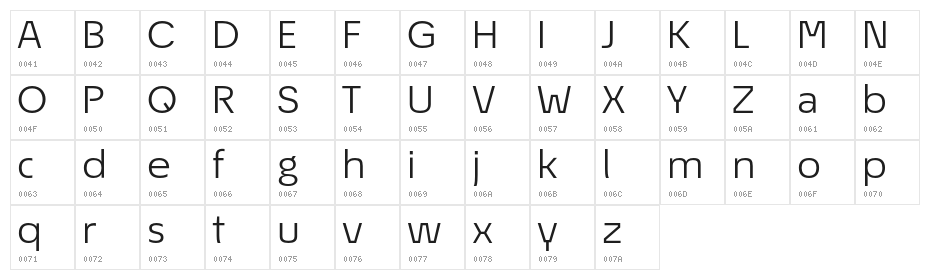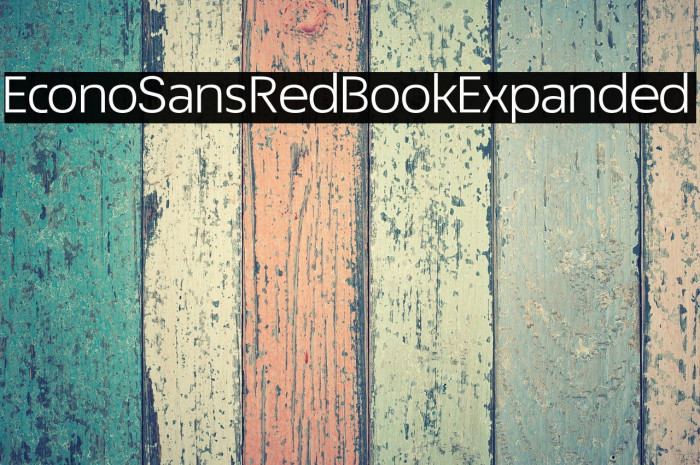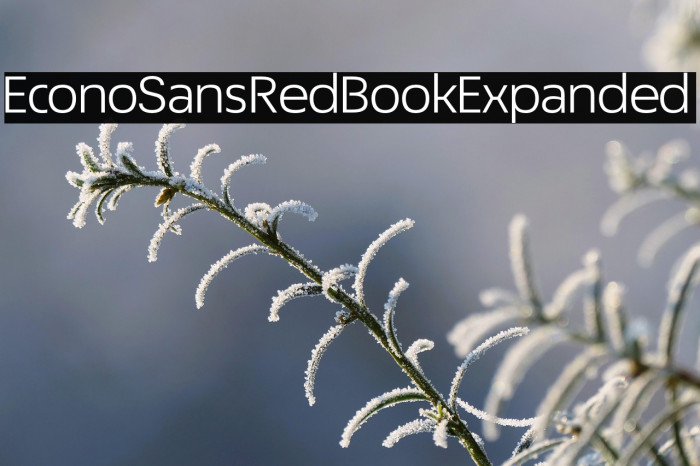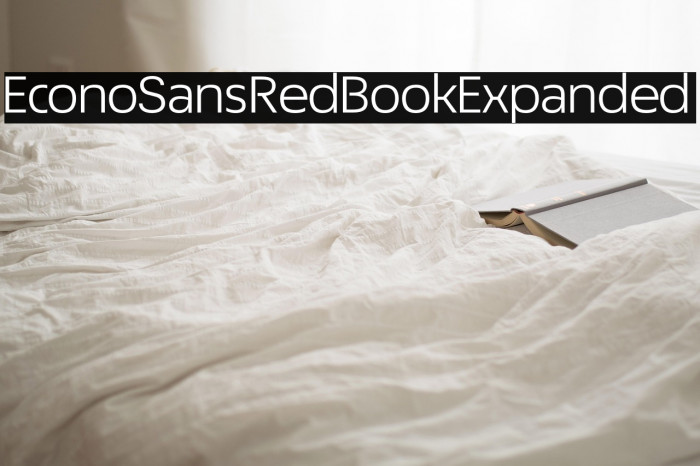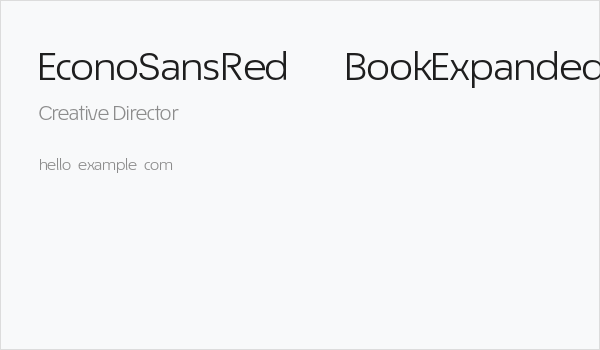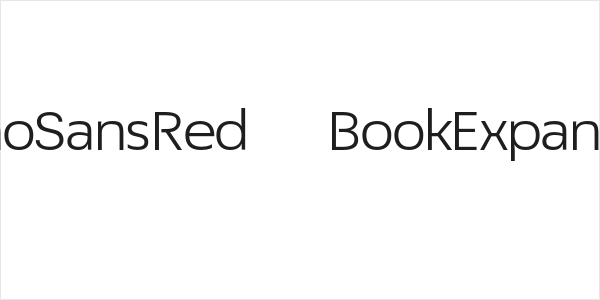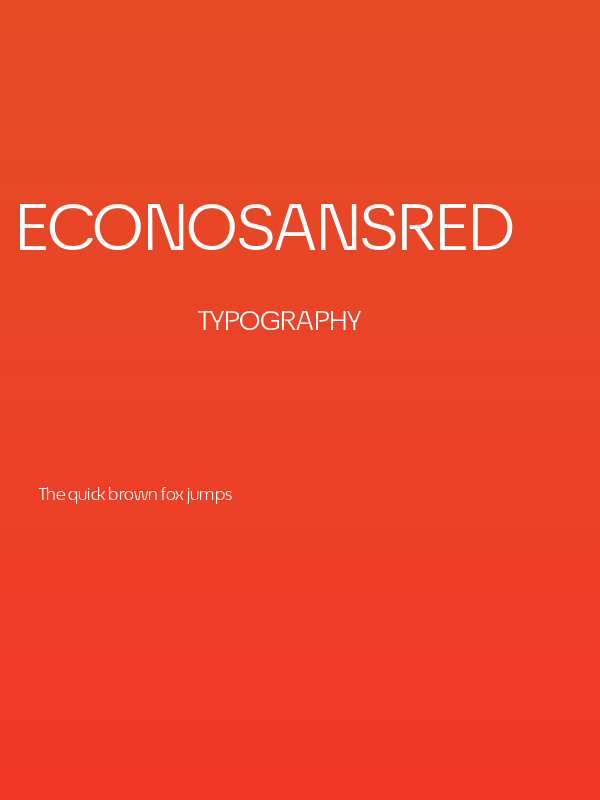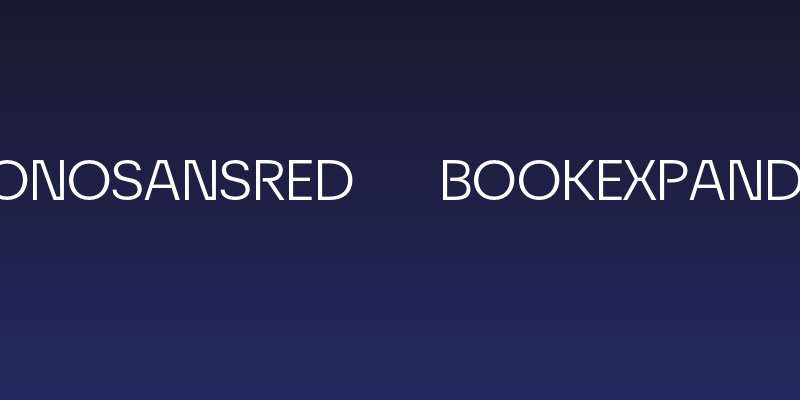
EconoSansRed-53BookExpanded Font
EconoSansRed-53BookExpanded Description
This font features a clean, modern sans-serif design with a focus on readability and simplicity. The characters are evenly spaced, providing a balanced and harmonious appearance. The strokes are consistent in thickness, contributing to a uniform look across all letters. The uppercase and lowercase letters maintain a cohesive style, with rounded edges and smooth curves that enhance the font's legibility. The overall aesthetic is sleek and professional, making it suitable for a variety of applications.